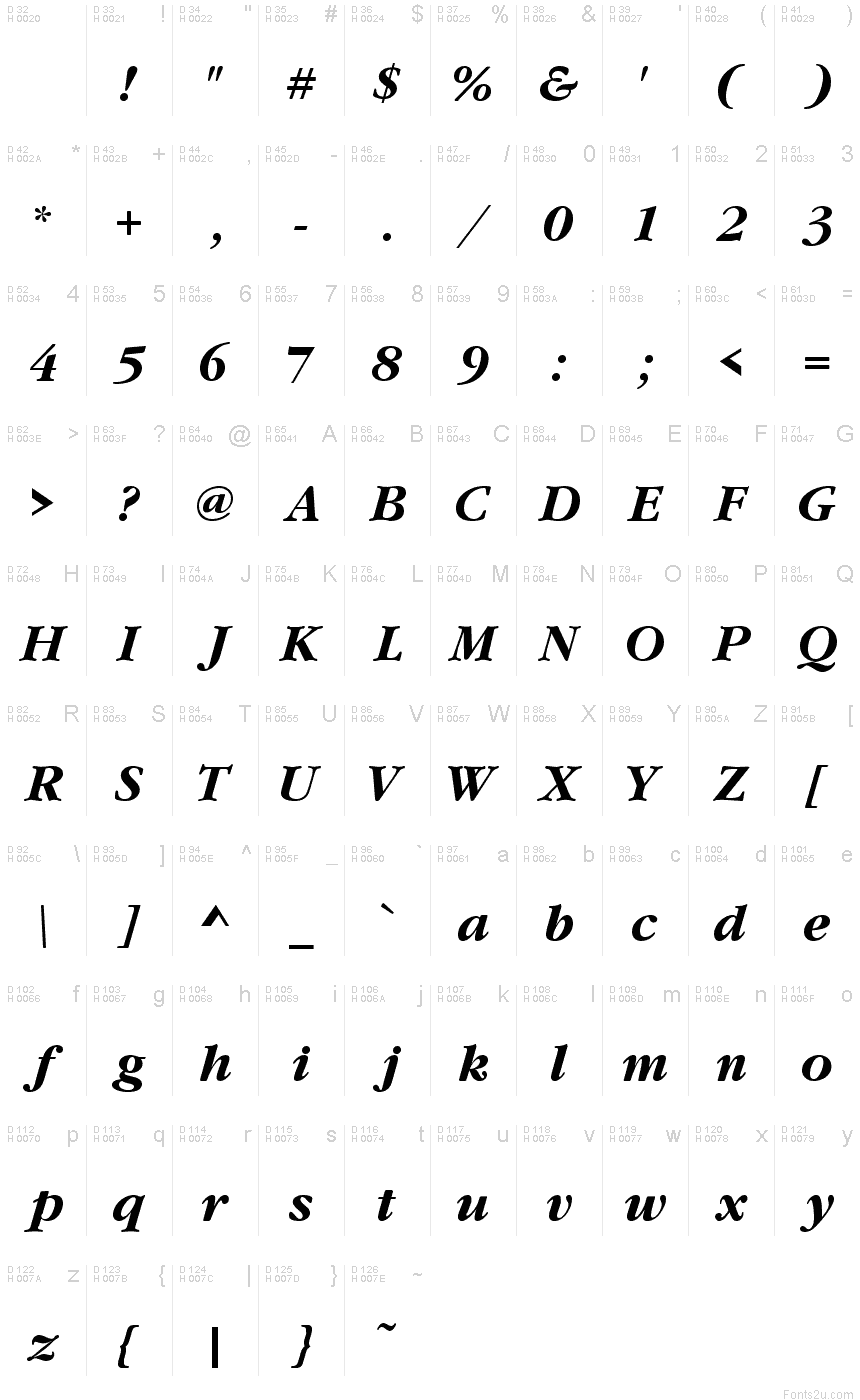
Gourmand Bold Italic
Gourmand Bold Italic font by Mgi Software is a free bold italic serif typeface with a lush, handwritten swing that feels straight out of a boutique patisserie sign. Its thick, inky strokes and smooth, leaning curves create a sense of movement, as if each word were brushed on with a generous, confident hand. The letters knit together tightly, giving headlines a rich, flavorful texture that’s hard to miss on the page.
Using Gourmand Bold Italic, your text immediately takes on a gourmet, handcrafted character that shines on food packaging, restaurant logos, menus, magazine titles, café signage, event invitations, and social media graphics. This free font works beautifully when you let it lead at larger sizes and pair it with a clean sans serif for supporting copy, keeping the spotlight on its bold, sweeping rhythm.